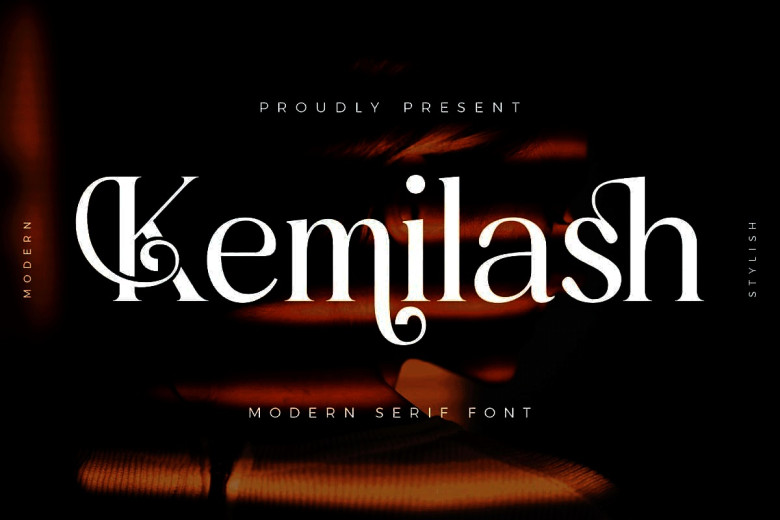
Kemilash Font
Kemilash is an eye-catching modern serif font with distinctive design and contemporary appeal, perfect for creating sophisticated and luxurious logos, movie or book titles, fashion brand magazines, clothing letters and quotes – and much more.
Kemilash Classic Serif Font